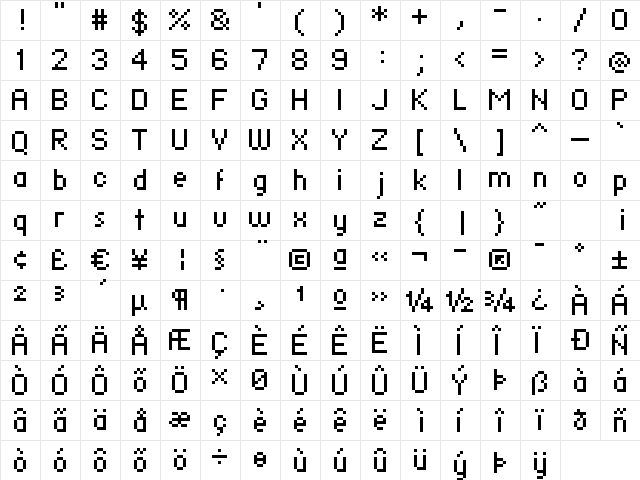
Fiery Turk Regular
| Foundry | Beycan ǥtin |
| Designer | Beycan ǥtin |
Design Context for Fiery Turk Typeface
Fiery Turk takes a measured approach to typography — its balanced proportions and neutral character make it a reliable workhorse for both digital and print work.